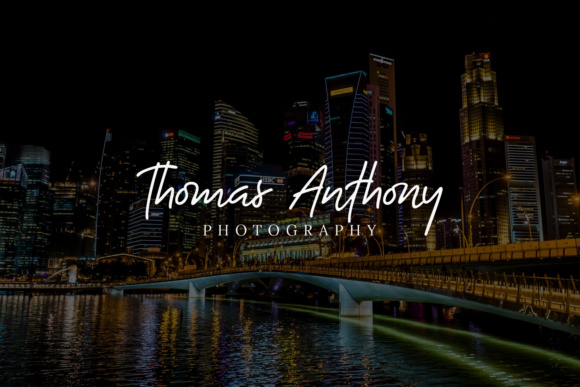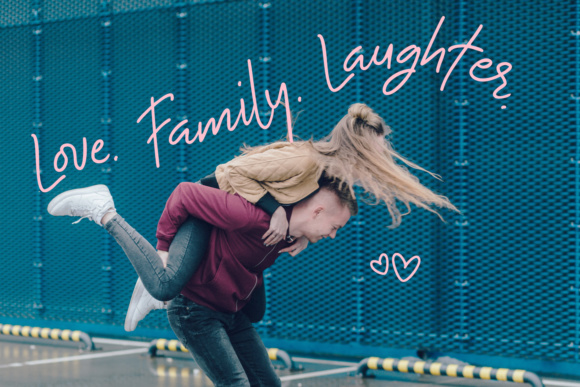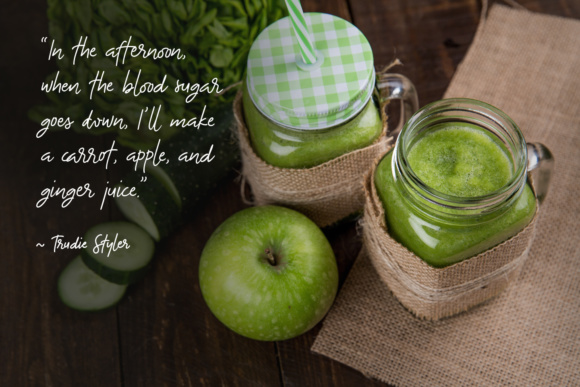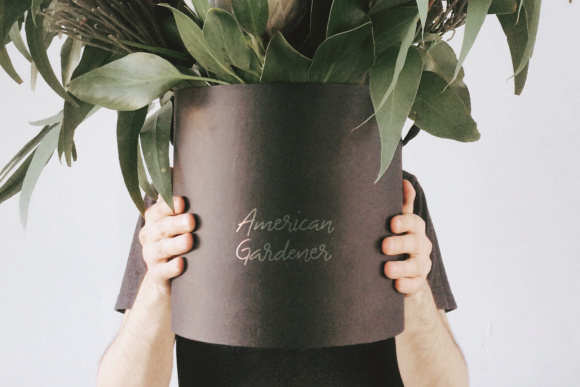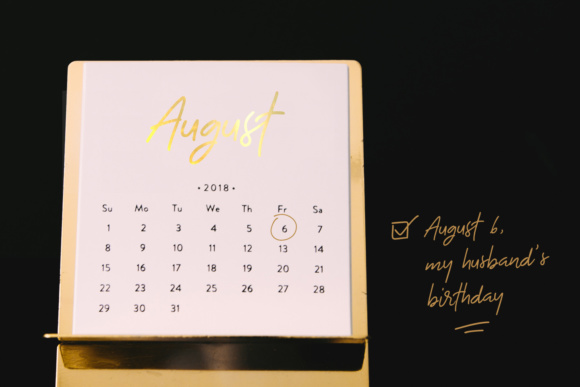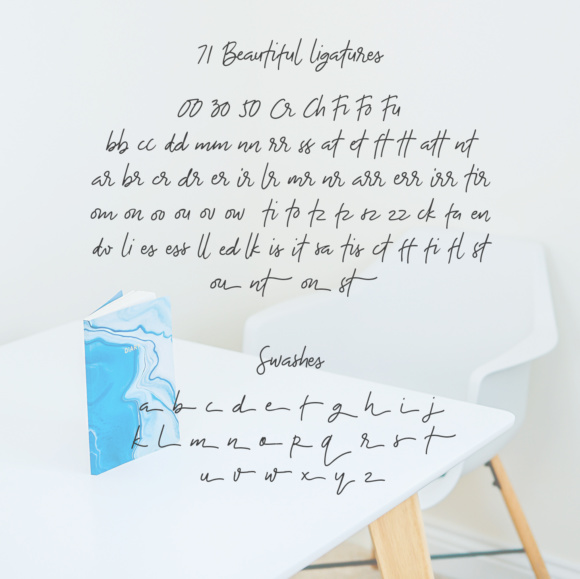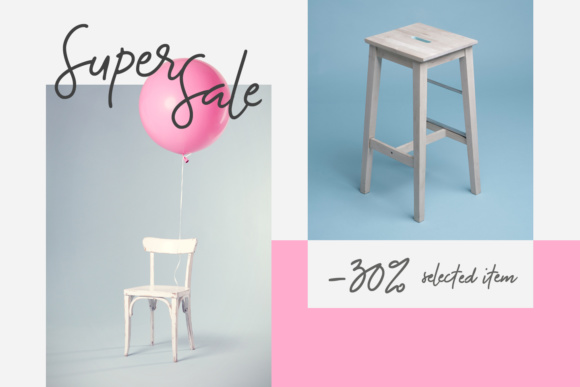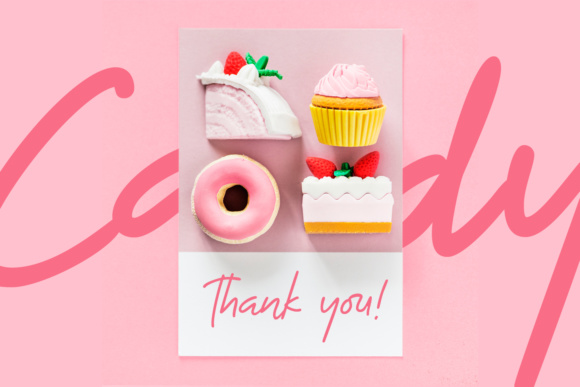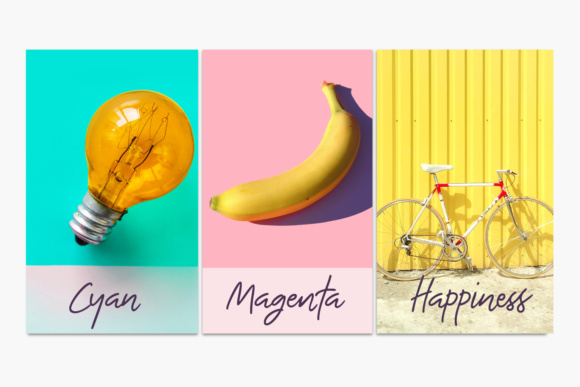
The Bouquet List Font
About The Bouquet List Font
The Bouquet List is a gorgeous, signature styled handwritten font that is suitable for use in headlines and displays in a variety of different project types. This font looks great in print and in web, and pairs well with other fonts for a stylish take on typographic designs.